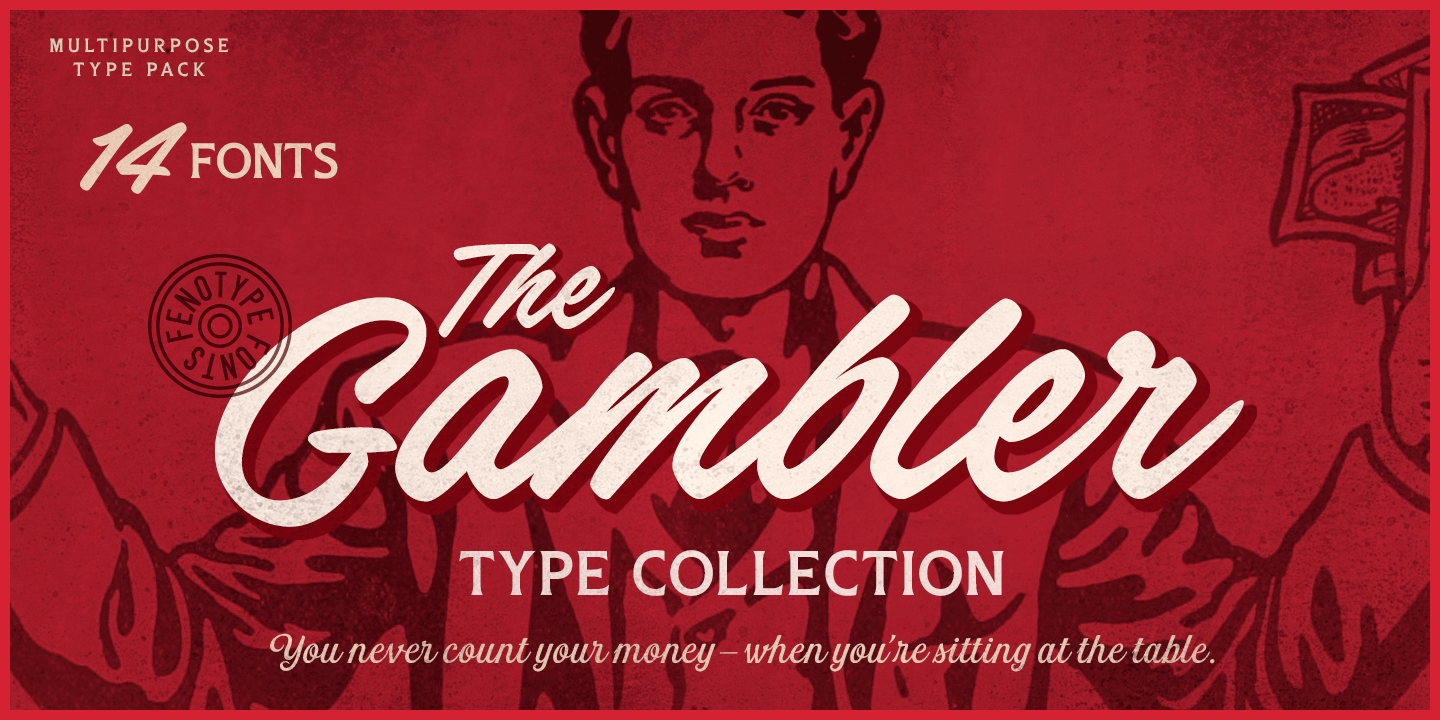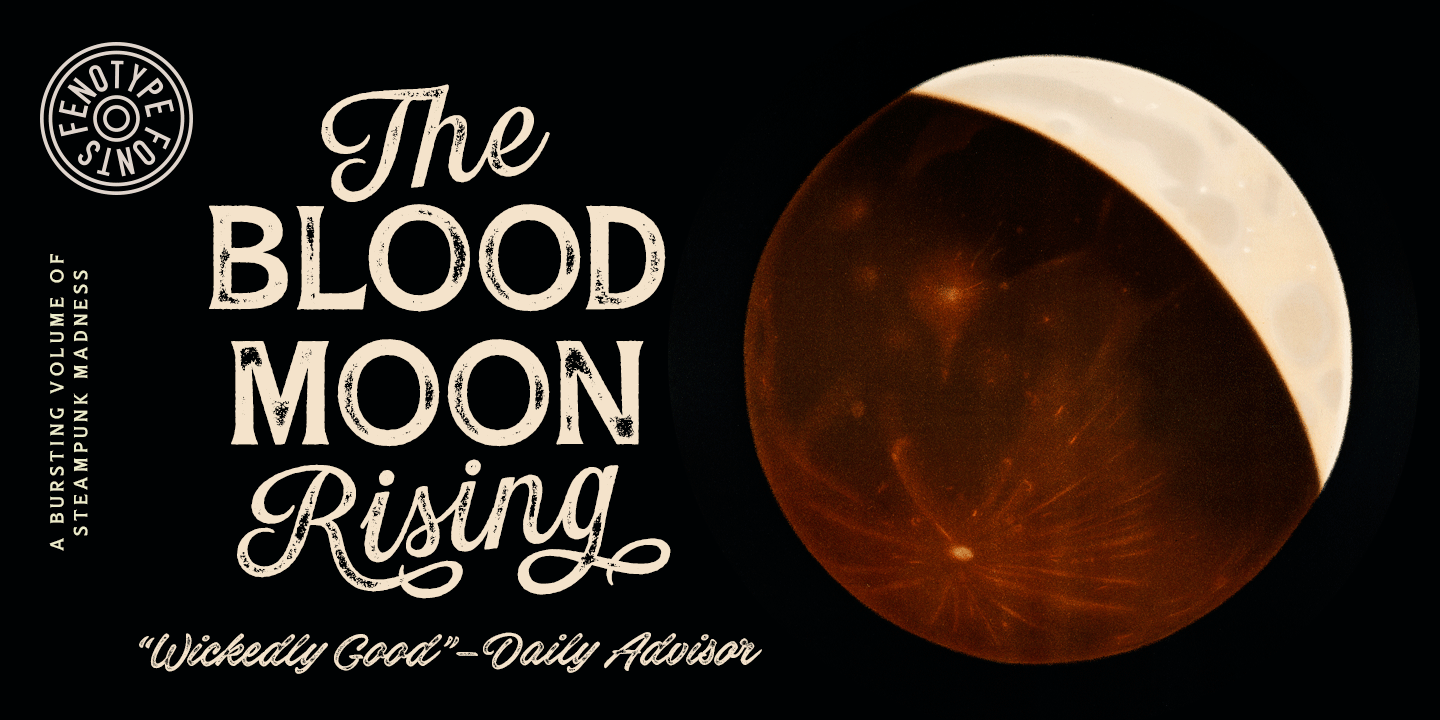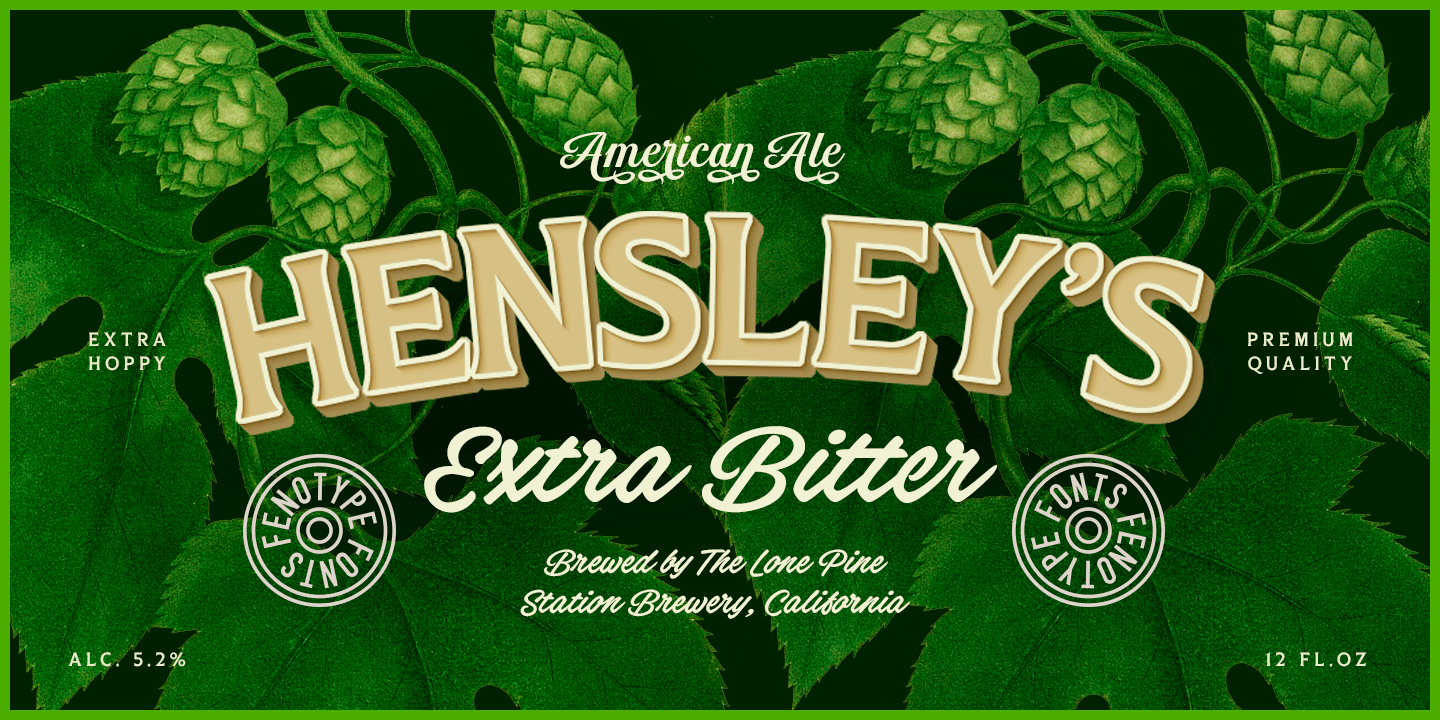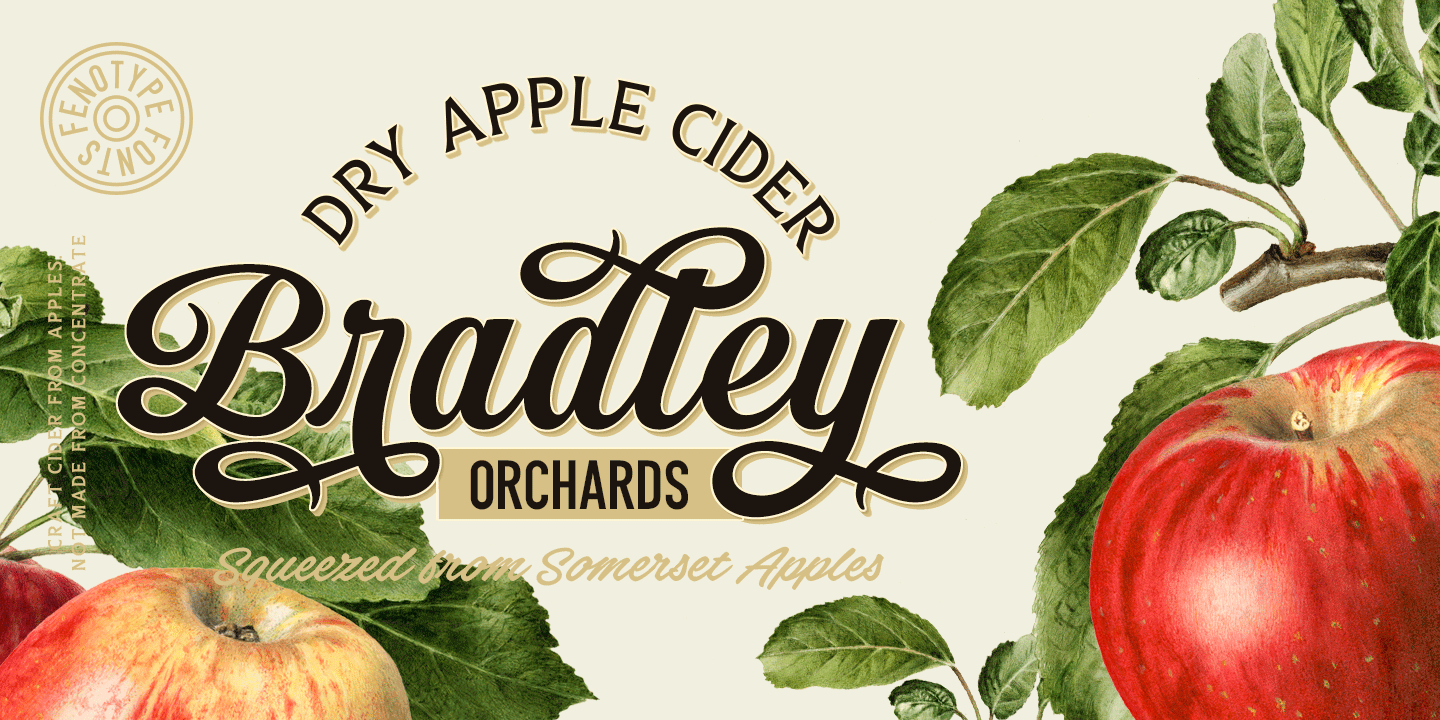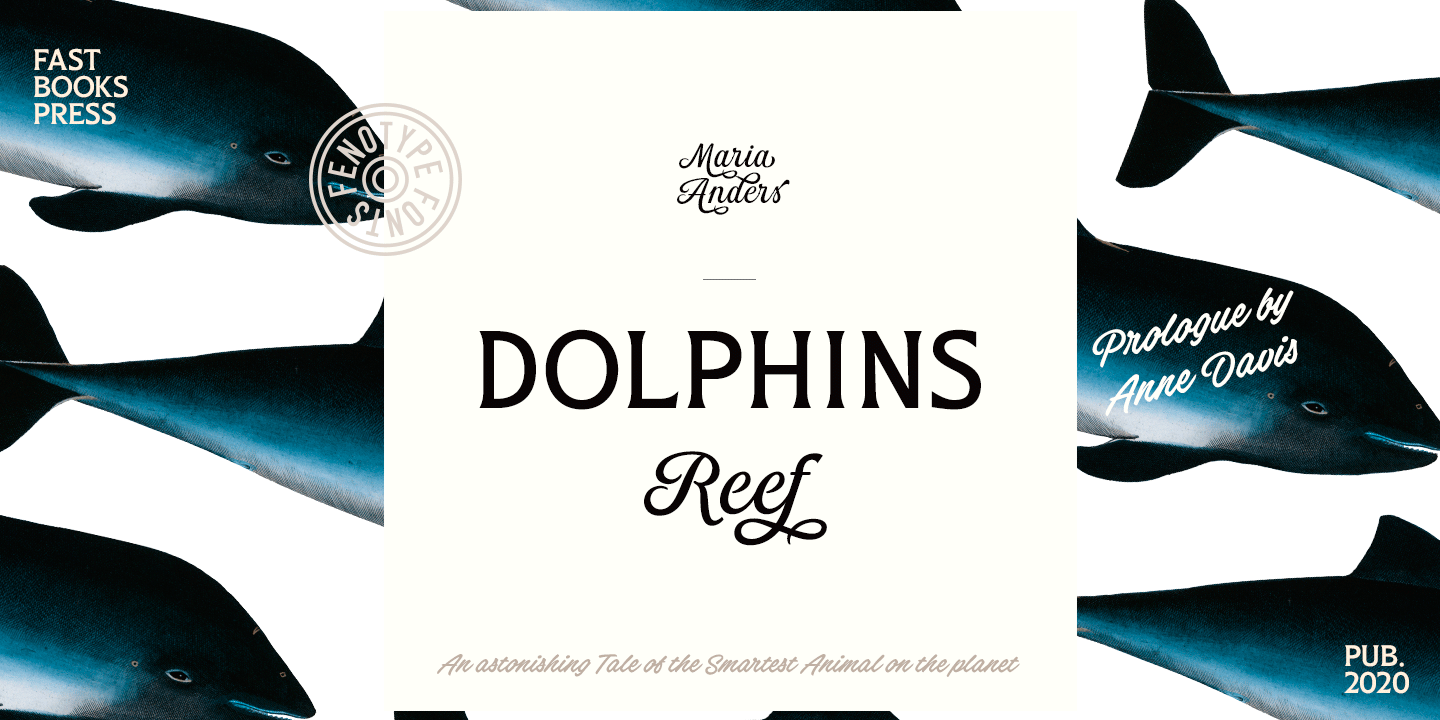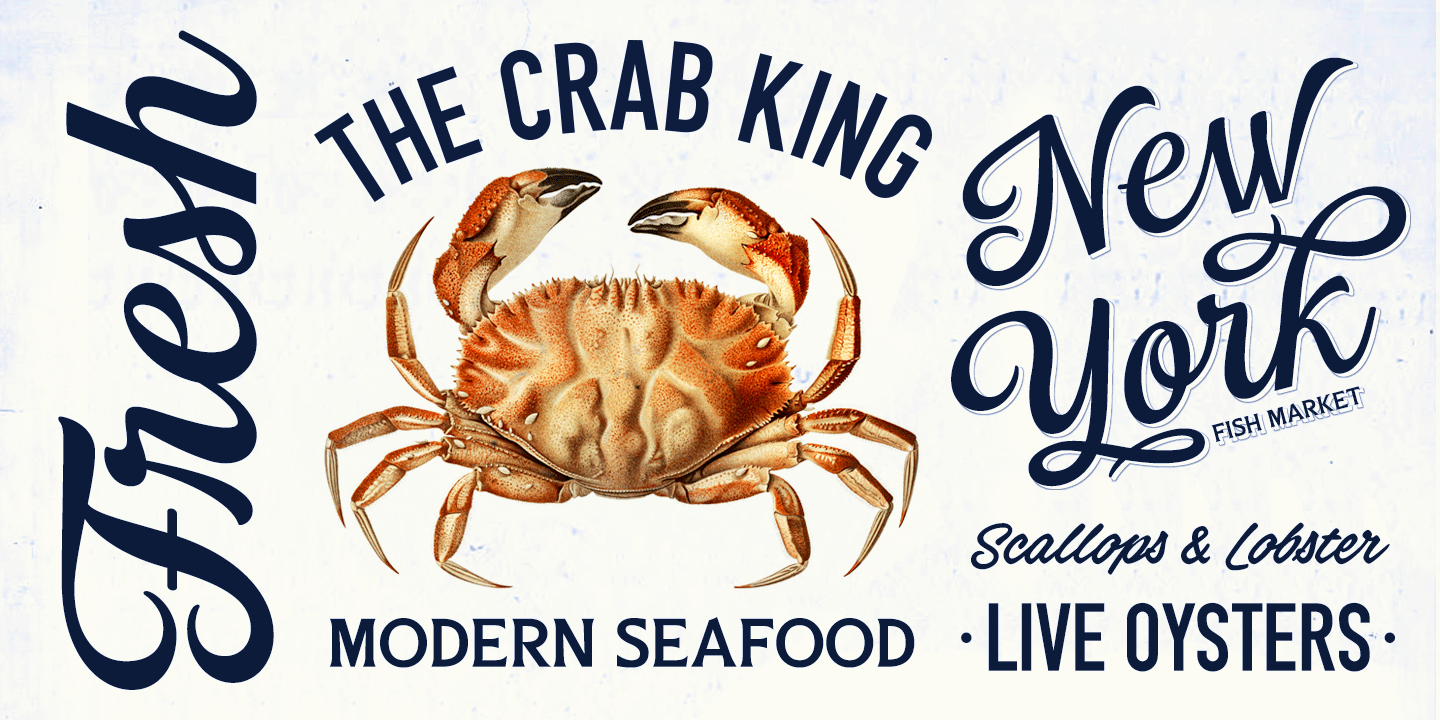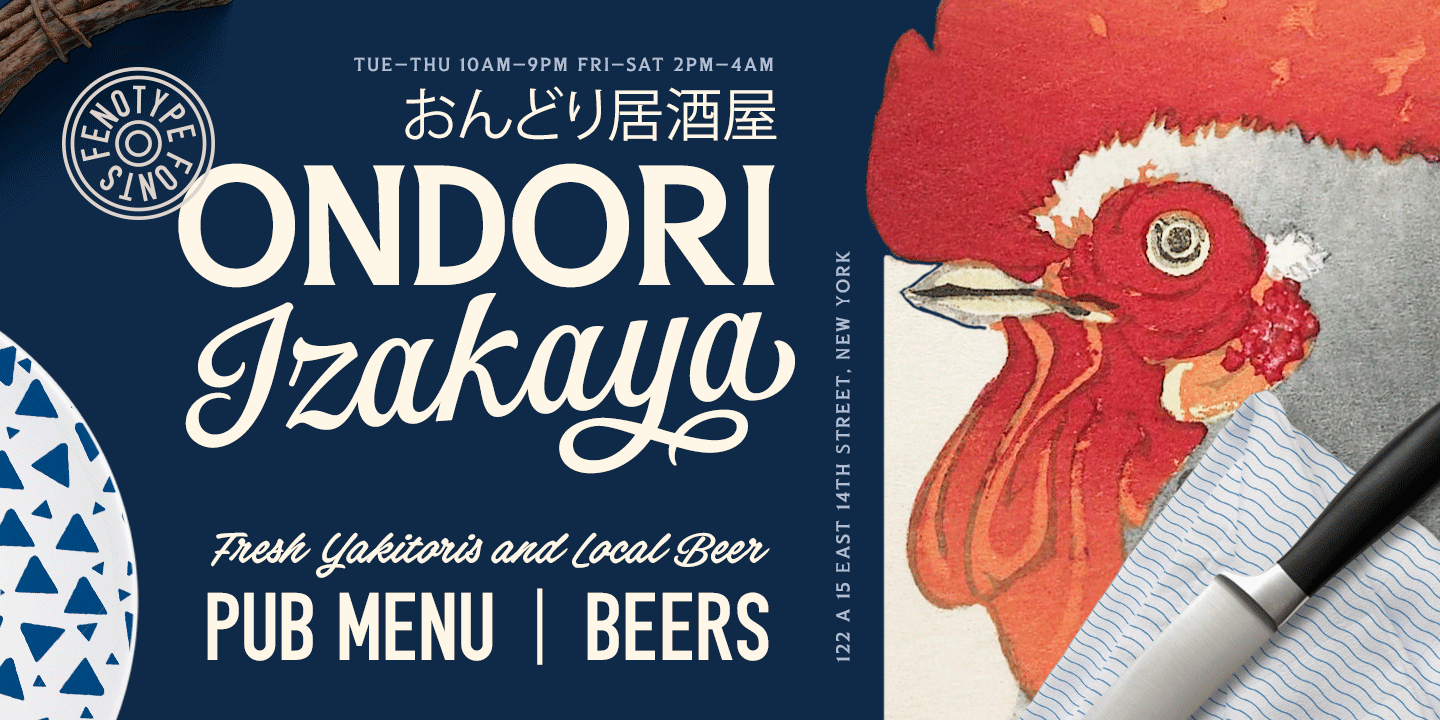
Gambler is a characteristic display type collection of 7 font styles with both clean and textured -making it total 14 fonts designed to play together. Gambler strikes with witty and elegant appeal combining vintage and modern elements. Gambler is an effective…